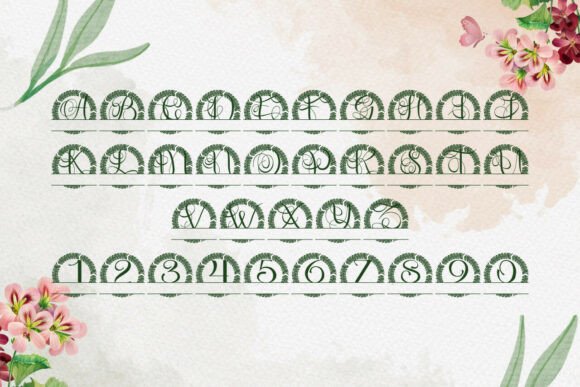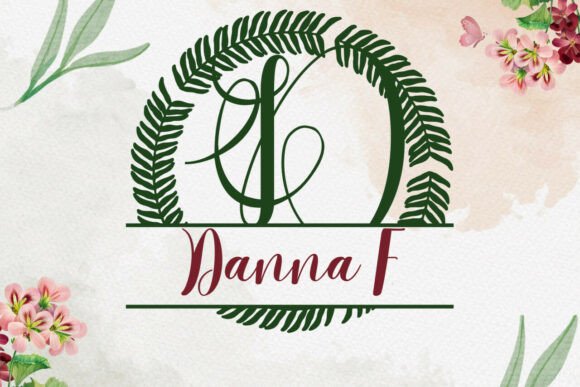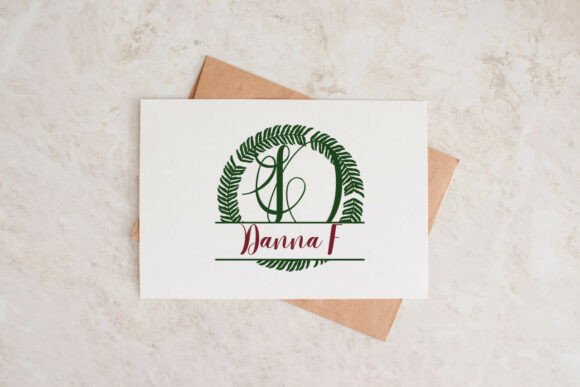
Meet Averleigh Split Monogram Font: Elevate Your Designs with Elegance
In the world of design, a well-crafted font can make all the difference in creating a lasting impression. Introducing Averleigh Split Monogram Font, a stunning typeface designed to transform any initial into a sophisticated, name-ready emblem in seconds. With its calm, elegant letterforms and precise horizontal split, this font is perfect for designers and crafters looking to add a touch of luxury to their projects.
The Power of Averleigh Split Monogram Font
Averleigh Split Monogram Font is more than just a font – it’s a design solution. Its unique features make it an ideal choice for a wide range of applications, from custom gifts and decorations to signage and wall art. Here are just a few reasons why Averleigh Split Monogram Font stands out:
- Effortless Personalization: With Averleigh Split Monogram Font, you can instantly personalize designs by setting one hero initial and placing the family name inside the split. This feature makes it perfect for creating custom gifts, such as engagement presents, and personalized decorations.
- Versatility: The font’s precise horizontal split provides natural space for names, dates, or short words, making it suitable for a variety of projects, including wayfinding, menus, and wall art.
- Scalability: Averleigh Split Monogram Font is designed to scale smoothly, ensuring that your designs remain clear and striking, whether you’re working with tiny tags or large signs.
- Readability: The font’s even spacing and open counters ensure that designs remain readable, even at small sizes, making it perfect for use on tumblers, ornaments, and other small items.
Where Averleigh Split Monogram Font Shines
Averleigh Split Monogram Font is a versatile design tool that excels in various applications. Here are some ideas to get you started:
- Engagement Gifts: Create custom engagement gifts, such as personalized candles, picture frames, or coasters, with the couple’s names or initials.
- Wayfinding: Use Averleigh Split Monogram Font to create clear and elegant signage for events, venues, or businesses.
- Seasonal Décor: Add a personal touch to your seasonal decorations with custom signs, banners, or wall art featuring short words like “Home,” “Welcome,” or “Love.”
- Custom Orders: With Averleigh Split Monogram Font, batching custom orders for markets and storefronts becomes fast, consistent, and profitable.
Tips for Pairing Averleigh Split Monogram Font
To get the most out of Averleigh Split Monogram Font, pair it with complementary fonts that enhance its elegance and readability. Here are some suggestions:
- Clean Sans: Pair Averleigh Split Monogram Font with a clean sans-serif font for a modern and sophisticated look.
- Light Script: Combine Averleigh Split Monogram Font with a light script font for a more elegant and refined design.
Averleigh Split Monogram Font is a powerful design tool that can elevate your projects with its elegance and versatility. Whether you’re a designer, crafter, or business owner, this font is perfect for creating custom gifts, decorations, signage, and more. With its precise horizontal split, even spacing, and open counters, Averleigh Split Monogram Font ensures that your designs remain clear, readable, and striking, making it an excellent addition to your font library.